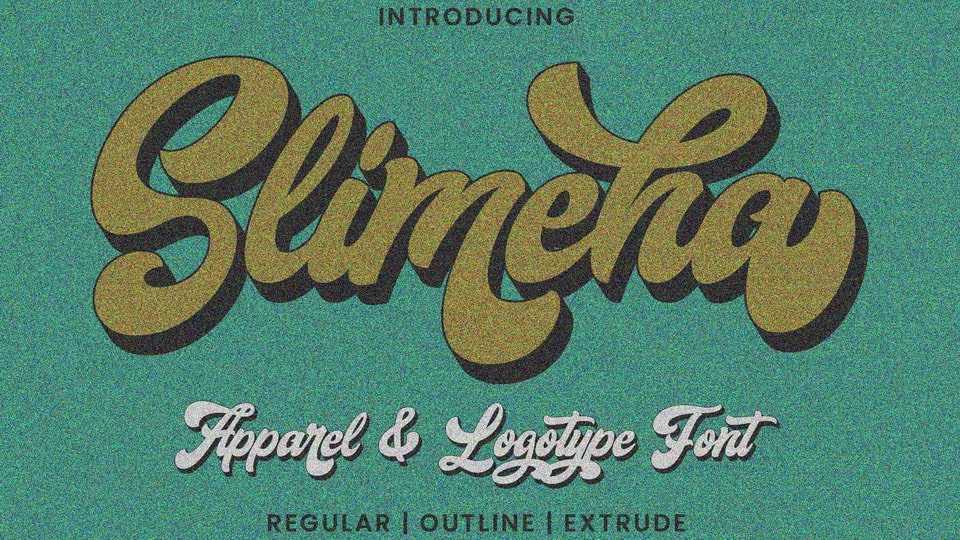
Download Slimeha font, a bold and modern handwritten typeface capable of taking any creation to the highest levels! Try it on advertisements, posters, branding materials, logos, etc.